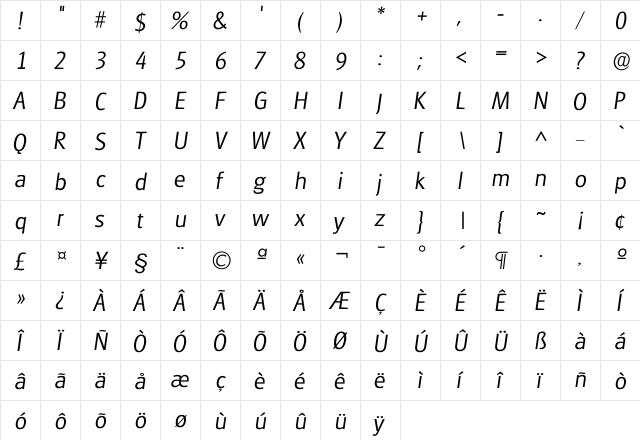
Iglasgow Light
Design Context for Iglasgow Typeface
Iglasgow takes a measured approach to typography — its balanced proportions and neutral character make it a reliable workhorse for both digital and print work. The delicate stroke weight brings airiness and refinement to layouts.
Pro Tip: Pair Iglasgow with a font of contrasting weight or personality to build a more expressive typographic hierarchy.